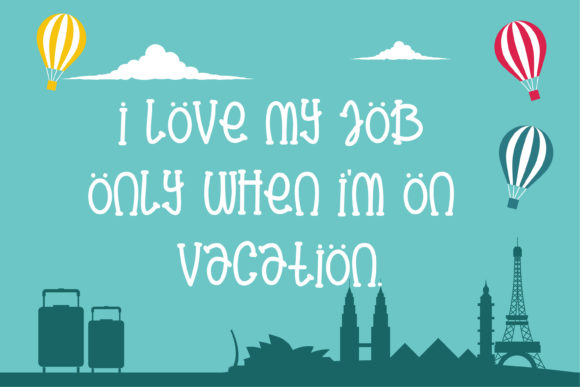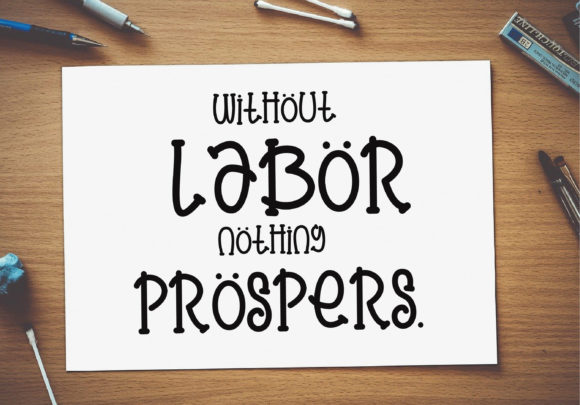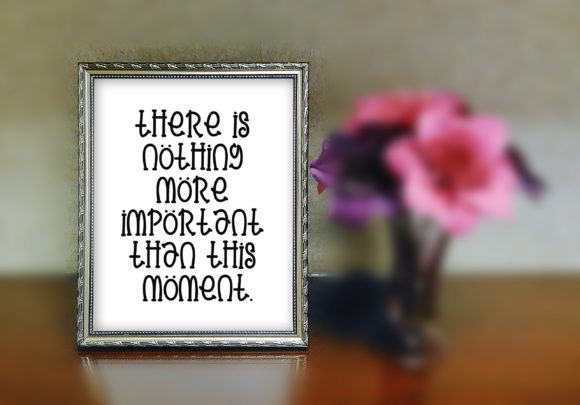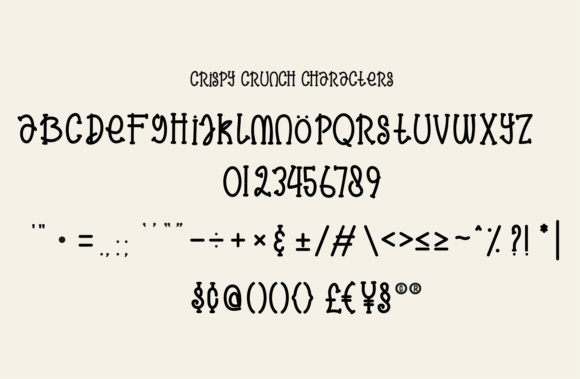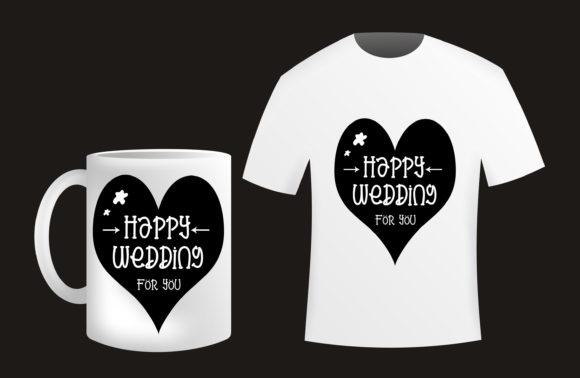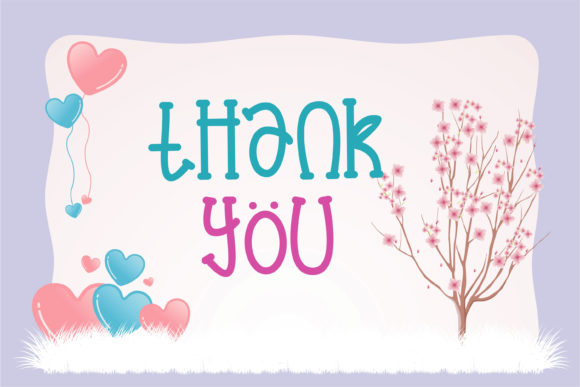
Crispy Crunch Font: The Perfect Addition to Your Design Arsenal
Are you a designer or crafter looking for a font that can add a touch of whimsy and playfulness to your creations? Look no further than the Crispy Crunch font. This cheerful, quirky, and neat display font is perfect for a wide range of design projects, from cartoon-related designs to children’s games, quotes, titles, brand names, book covers, posters, and more.
What Makes Crispy Crunch Font So Special?
The Crispy Crunch font is a unique and eye-catching typeface that is sure to grab attention. Its bold and chunky design makes it perfect for headlines, titles, and other applications where you want to make a statement. At the same time, its clean and neat lines ensure that it remains highly legible, even at smaller sizes.
Key Features of Crispy Crunch Font
• Cheerful and Quirky Design: The Crispy Crunch font has a playful and upbeat design that is sure to add a touch of fun to your creations.
• Neat and Clean Lines: Despite its bold and chunky design, the Crispy Crunch font has clean and neat lines that ensure high legibility.
• Perfect for Display Purposes: The Crispy Crunch font is specifically designed for display purposes, making it perfect for headlines, titles, and other applications where you want to grab attention.
• Wide Range of Uses: The Crispy Crunch font can be used for a wide range of design projects, from cartoon-related designs to children’s games, quotes, titles, brand names, book covers, posters, and more.
How to Use Crispy Crunch Font in Your Designs
The Crispy Crunch font is incredibly versatile and can be used in a wide range of design projects. Here are a few ideas to get you started:
• Cartoon-Related Designs: The Crispy Crunch font is perfect for cartoon-related designs, such as character logos, cartoon titles, and more.
• Children’s Games and Education: The Crispy Crunch font is also great for children’s games and educational materials, such as alphabet charts, number lines, and more.
• Quotes and Titles: The Crispy Crunch font is perfect for quotes and titles, adding a touch of whimsy and playfulness to your text.
• Brand Names and Logos: The Crispy Crunch font can also be used to create unique and eye-catching brand names and logos.
• Book Covers and Posters: Finally, the Crispy Crunch font is great for book covers and posters, adding a touch of personality and flair to your designs.
Why Choose Crispy Crunch Font?
So why choose the Crispy Crunch font over other display fonts? Here are a few reasons:
• Unique Design: The Crispy Crunch font has a unique and eye-catching design that is sure to grab attention.
• High Legibility: Despite its bold and chunky design, the Crispy Crunch font remains highly legible, even at smaller sizes.
• Versatility: The Crispy Crunch font can be used for a wide range of design projects, making it a great addition to your design arsenal.
In conclusion, the Crispy Crunch font is a great choice for designers and crafters looking to add a touch of whimsy and playfulness to their creations. With its unique and eye-catching design, high legibility, and versatility, this font is perfect for a wide range of design projects. Whether you’re creating cartoon-related designs, children’s games, quotes, titles, brand names, book covers, posters, or just any creation that requires a touch of beauty, the Crispy Crunch font is a great choice.